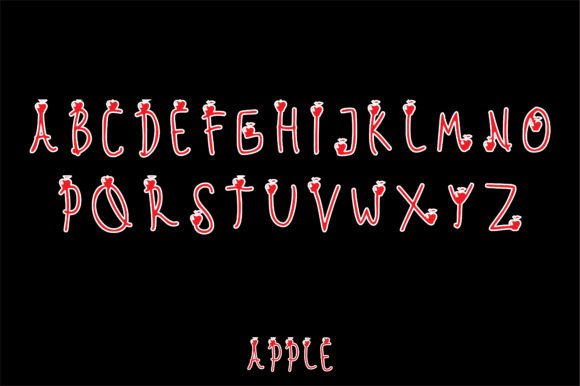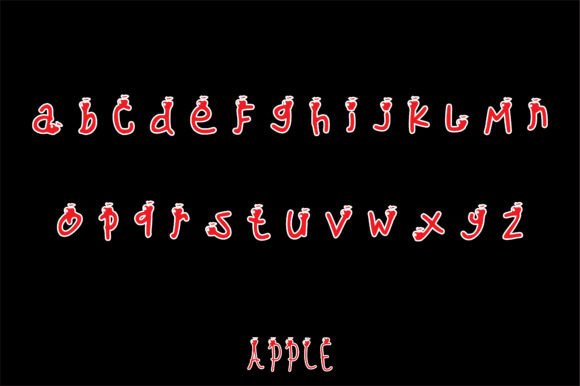
About Apple Font
“Apple” is a fun and cute handwritten font that adds a whimsical and quirky touch to your designs. Designed to bring a playful vibe, this font is perfect for a wide range of creative projects where you want to infuse a sense of fun and uniqueness.
The hand-written style of “Apple” gives it a personal and organic feel, making it suitable for various design contexts. Whether you’re working on invitations, social media posts, or any project that requires a touch of playfulness, this font is crafted to meet those needs.
The whimsical and quirky qualities of “Apple” make it stand out and capture attention. It’s a great choice for adding character and personality to your text, making your designs more memorable and engaging.
Incorporate “Apple” into your creative projects to make them outstanding and unique. This font is designed to bring a fun and cute element to your designs, making them visually appealing and delightful.
In summary, “Apple” is a fun and cute handwritten font with a whimsical and quirky style. It’s a versatile choice for a variety of creative projects, adding a playful touch that makes your designs stand out.